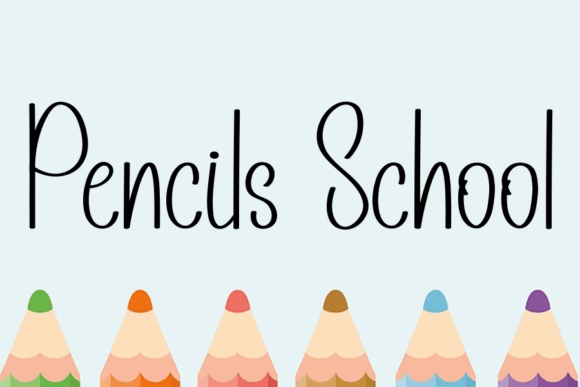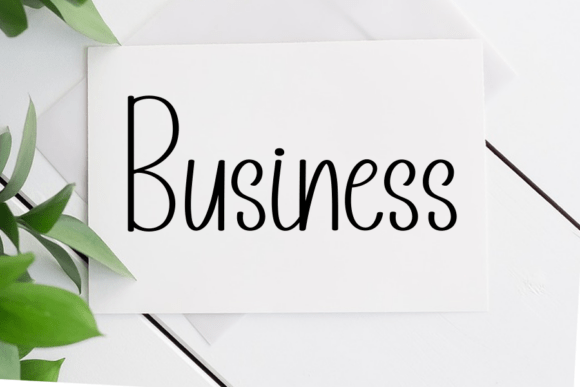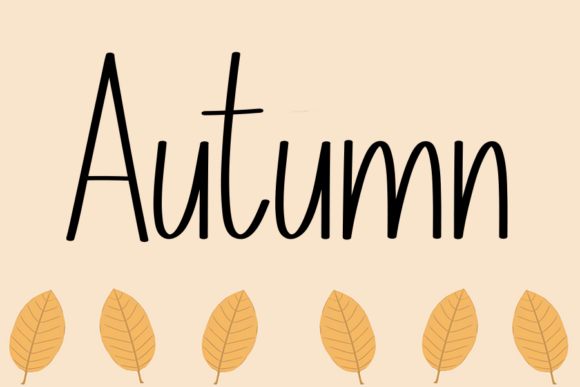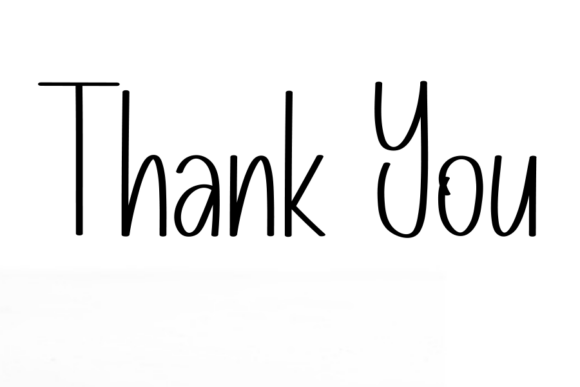
Bicycle Font: Elevate Your Designs with a Sweet and Cursive Handwritten Style
Are you on the hunt for a font that adds a touch of elegance and whimsy to your designs? Look no further than the Bicycle Font! This beautiful, cursive handwritten font is perfect for designers and crafters who want to infuse their projects with a sense of joy and romance. In this article, we’ll dive into the world of Bicycle Font, exploring its features, uses, and benefits, as well as provide tips on how to make the most of this gorgeous font.
What is Bicycle Font?
Bicycle Font is a sweet and cursive handwritten font that exudes a sense of elegance and sophistication. Its gentle curves and flowing lines make it perfect for a wide range of design projects, from branding and logos to wedding invitations and greeting cards. This font is designed to add a touch of whimsy and romance to your designs, making it ideal for projects that require a personal and human touch.
Features of Bicycle Font
So, what makes Bicycle Font so special? Here are just a few of its key features:
- Cursive and handwritten: Bicycle Font boasts a beautiful, cursive handwritten style that’s perfect for adding a personal touch to your designs.
- Elegant and sophisticated: This font exudes a sense of elegance and sophistication, making it perfect for high-end designs and luxury brands.
- Versatile: Bicycle Font can be used for a wide range of design projects, from branding and logos to wedding invitations and greeting cards.
- Easy to read: Despite its elegant and cursive style, Bicycle Font is easy to read, making it perfect for body text and other long-form content.
Uses of Bicycle Font
So, what can you use Bicycle Font for? The possibilities are endless! Here are just a few ideas to get you started:
- Branding and logos: Use Bicycle Font to create a unique and memorable brand identity that stands out from the crowd.
- Wedding invitations and things: Add a touch of romance and elegance to your wedding designs with Bicycle Font.
- Greeting cards: Use Bicycle Font to create beautiful and heartfelt greeting cards for any occasion.
- Fashion and lookbook: Bicycle Font is perfect for fashion designs, lookbooks, and other style-related projects.
- Marketing promotion: Use Bicycle Font to add a touch of elegance and sophistication to your marketing materials.
Tips for Using Bicycle Font
Here are a few tips for getting the most out of Bicycle Font:
- Use it sparingly: While Bicycle Font is beautiful, it can be overwhelming if used too much. Use it sparingly to add a touch of elegance to your designs.
- Pair it with other fonts: Bicycle Font pairs well with a variety of other fonts, including sans-serif and serif fonts. Experiment with different pairings to find the perfect combination.
- Experiment with colors: Bicycle Font looks great in a variety of colors, from bold and bright to soft and pastel. Experiment with different colors to find the perfect fit for your design.
In conclusion, Bicycle Font is a beautiful and versatile font that’s perfect for designers and crafters who want to add a touch of elegance and whimsy to their designs. With its cursive and handwritten style, elegant and sophisticated feel, and versatility, Bicycle Font is sure to become a favorite in your design toolkit. So why not give it a try and see the difference it can make in your designs?